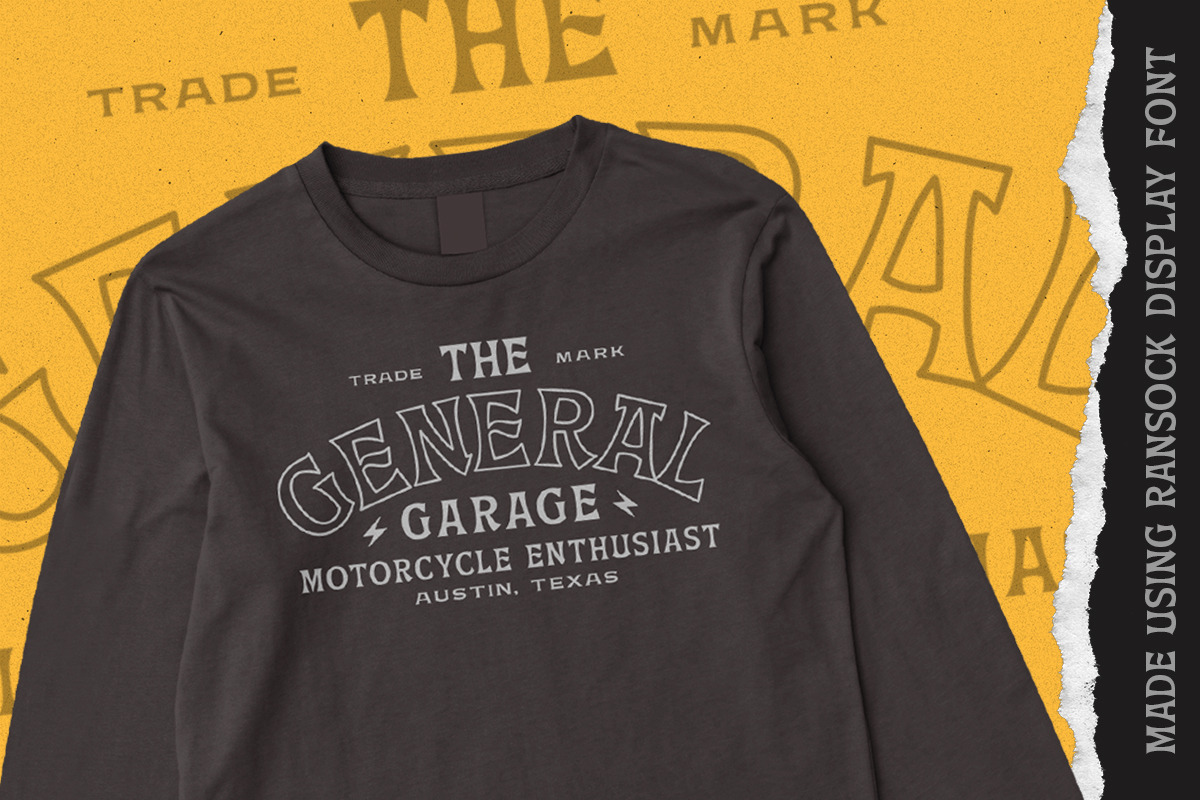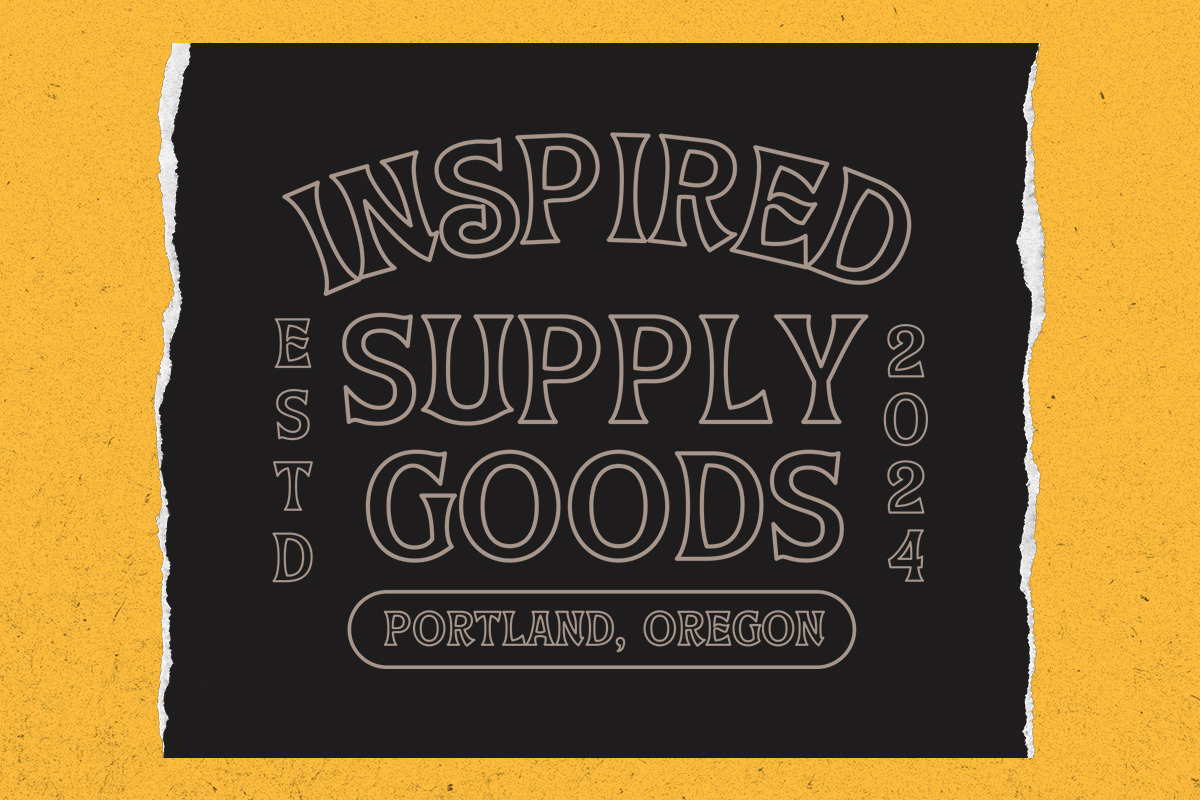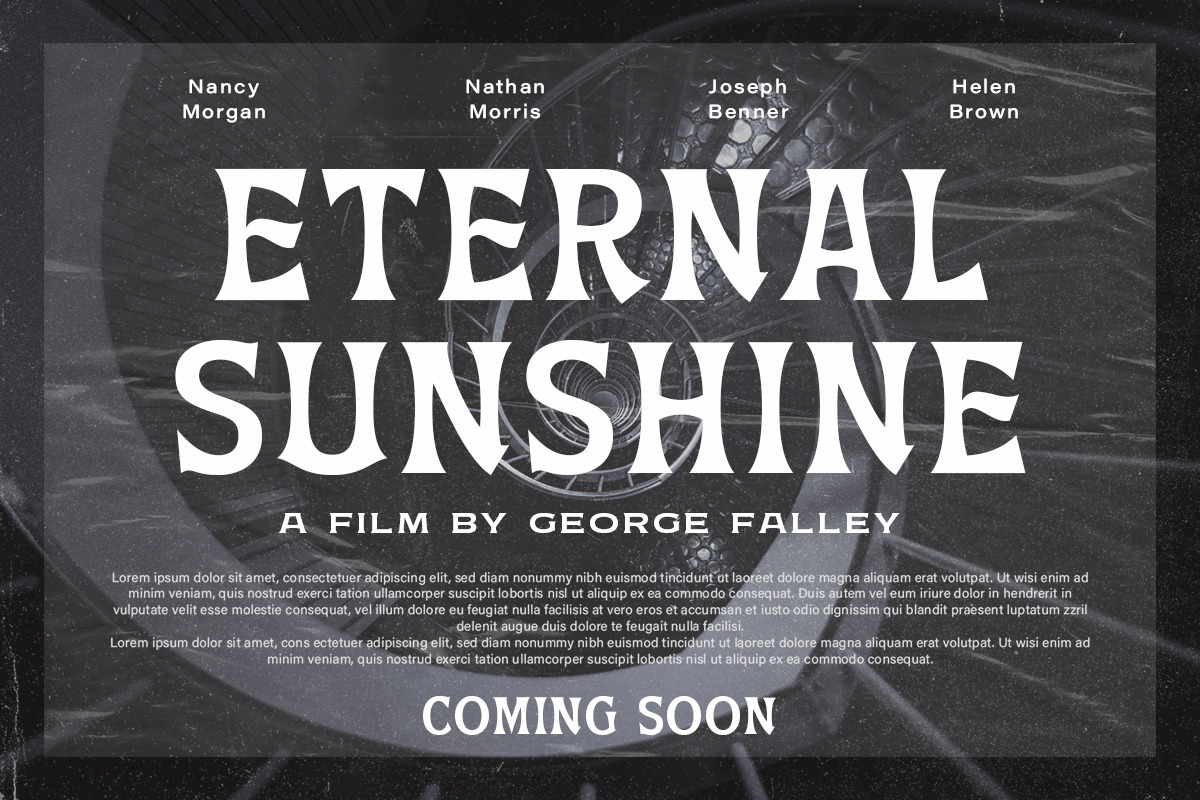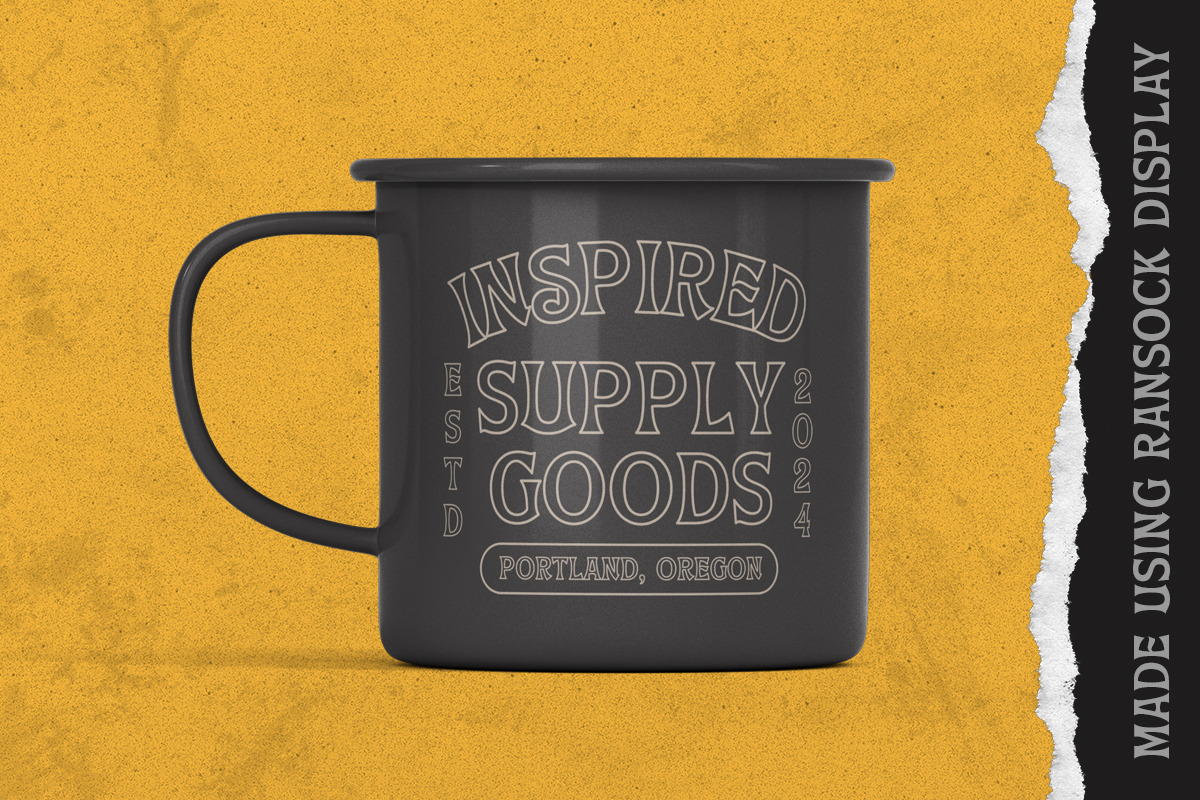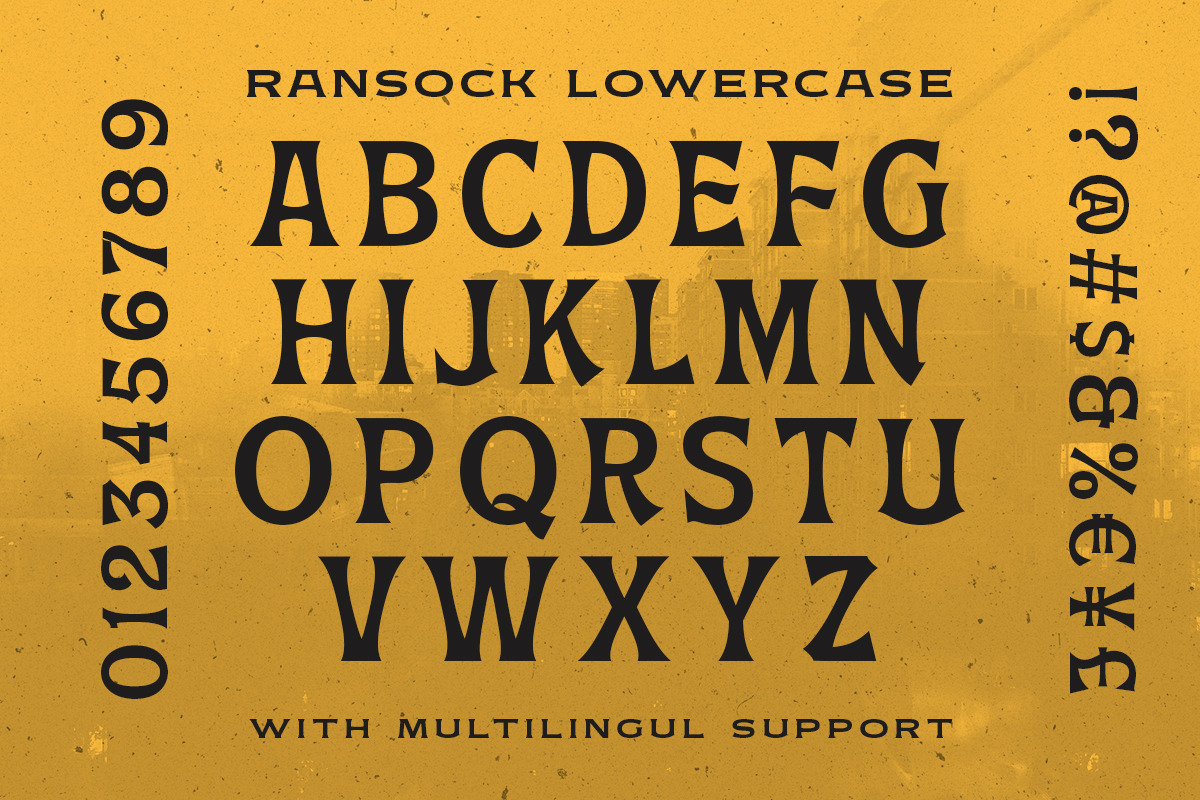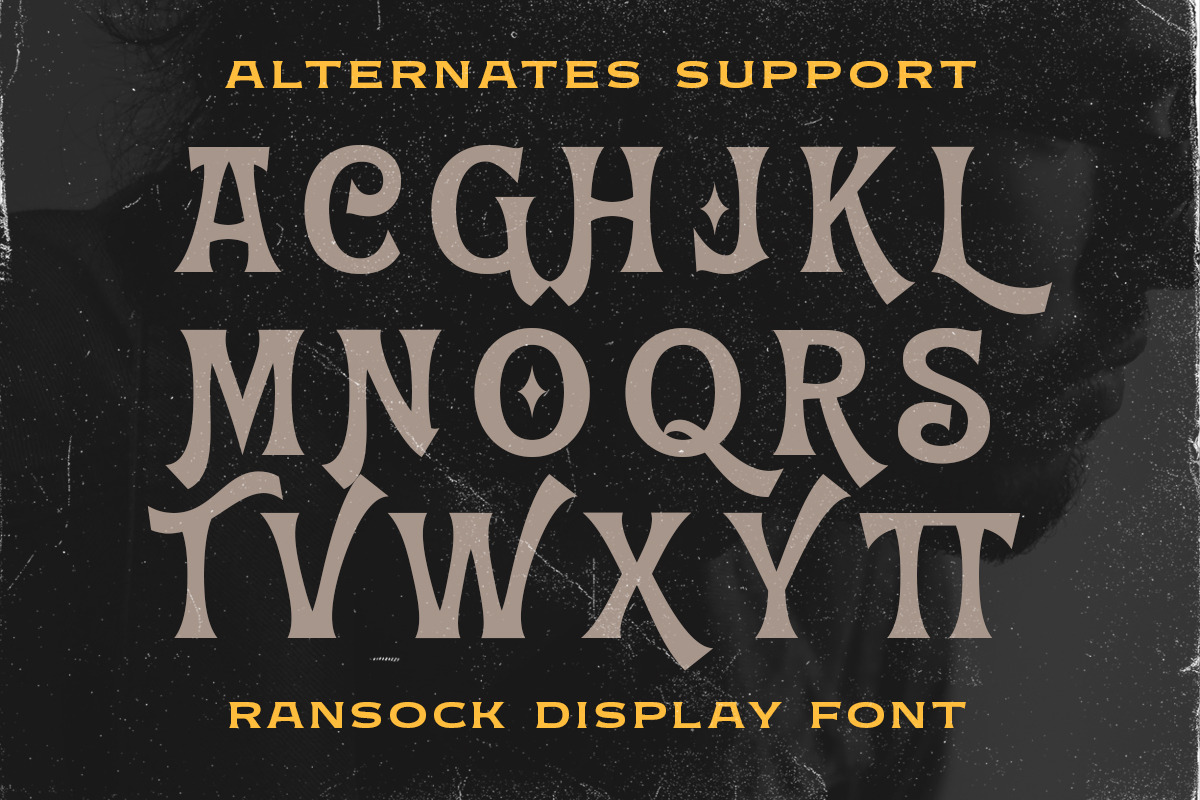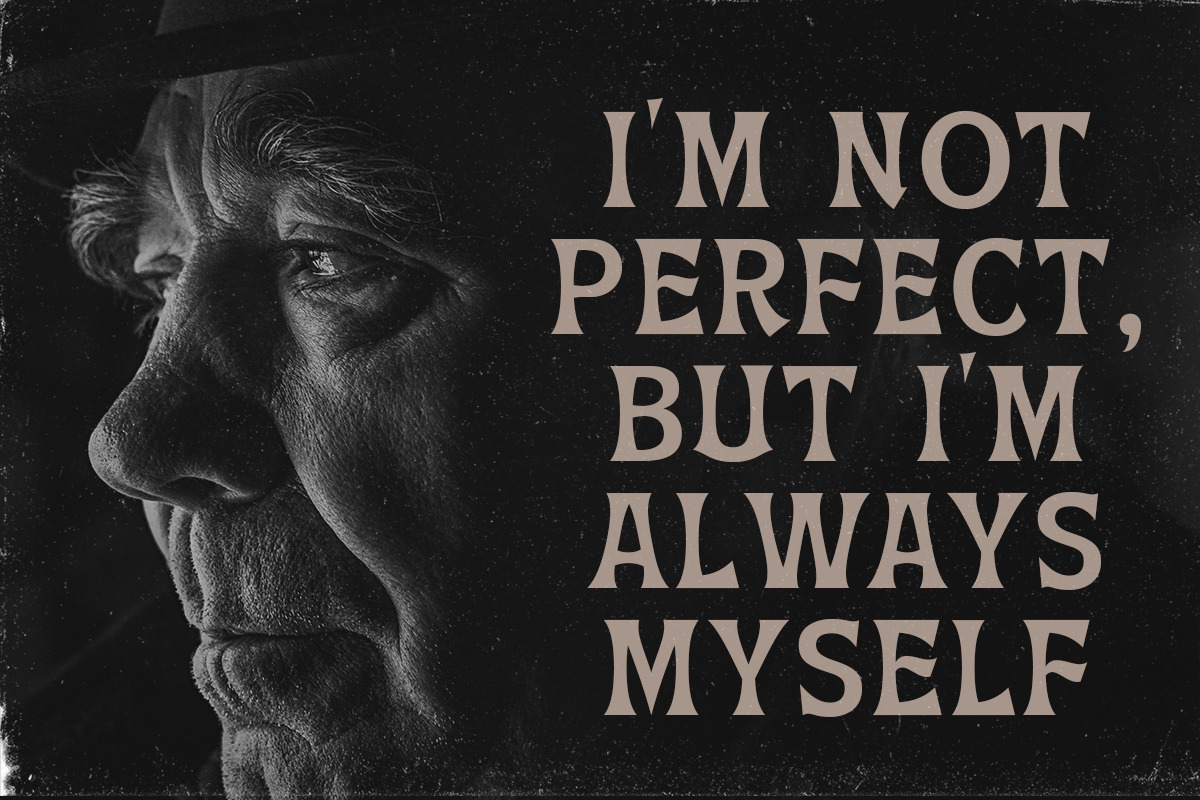
Ransock Display
Ransock Display is a vintage display font. It's inspired by modern feels and classic looks. This font perfectly made to be applied especially in logo, and the other various formal forms such as invitations, labels, logos, magazines, books, greeting / wedding cards, packaging, fashion, make up, stationery, novels, labels or any type of advertising purpose